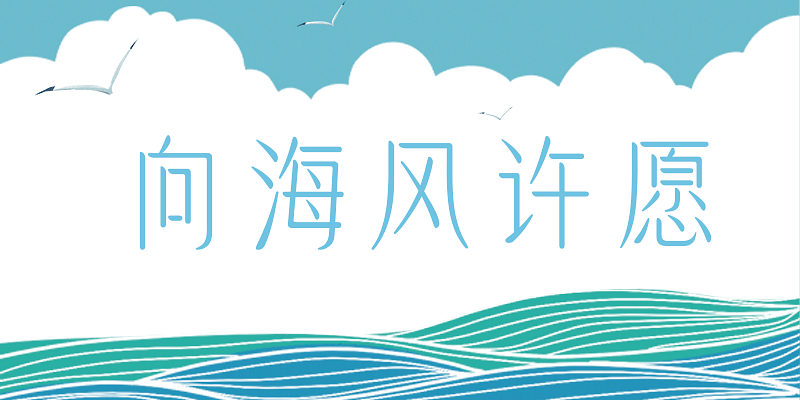
HelloFont ID Mu Feng Ti Font Free Download is a refined and stylish Chinese-inspired typeface that combines smooth brushstrokes with a clean and structured design. It is perfect for projects that demand both legibility and elegance, such as branding, invitations, editorial design, packaging, and promotional materials. With its balanced strokes and artistic appeal, this font is ideal for modern designs that seek to evoke sophistication with cultural depth.
The HelloFont ID Mu Feng Ti Font features subtle calligraphic influences, giving it a unique and graceful aesthetic. Whether you're working on luxury product branding, cultural event designs, or high-end print layouts, this typeface adds a touch of elegance and character to your work while ensuring readability.